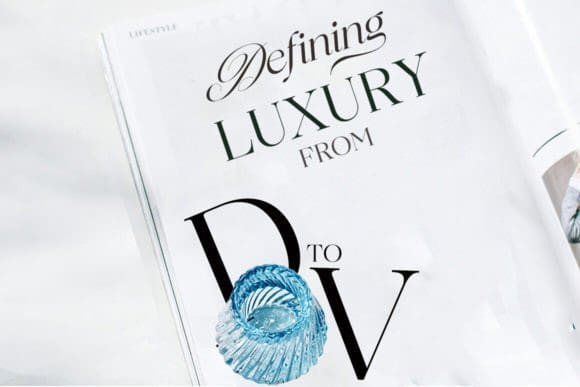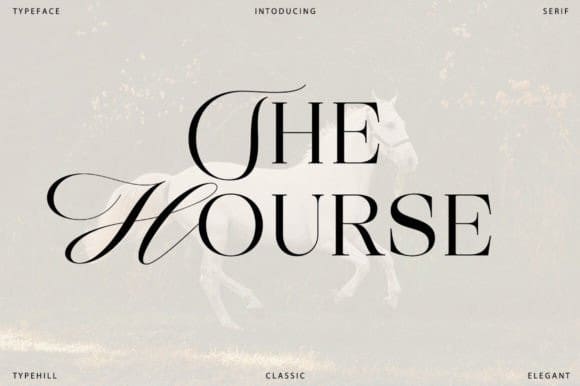
The Hourse Font
The Hourse Font is a Contemporary, Classy, and Warm Serif typeface. The Hourse Serif has Clean and Smooth details. The design was intended to improve upon the Legibility.
It’s a perfect choice for Branding, Magazines, Posters, Advertising, Print, Packaging, Headlines, Logos, Web Design etc. This font is PUA encoded which means you can access all of the amazing glyphs and ligatures with ease!